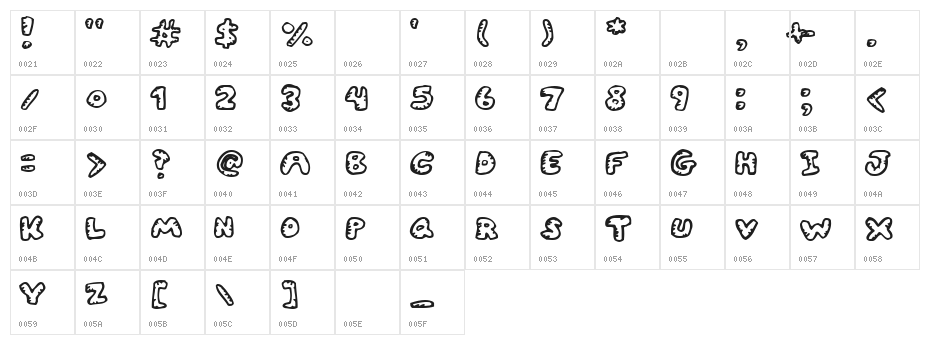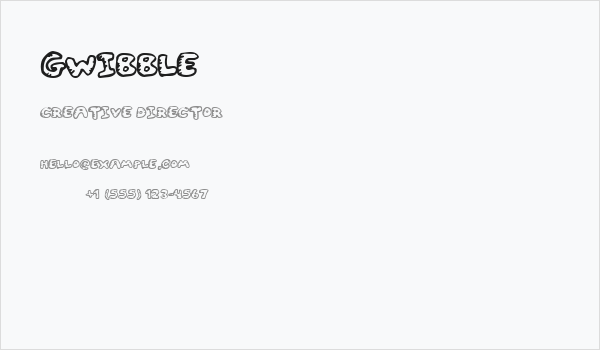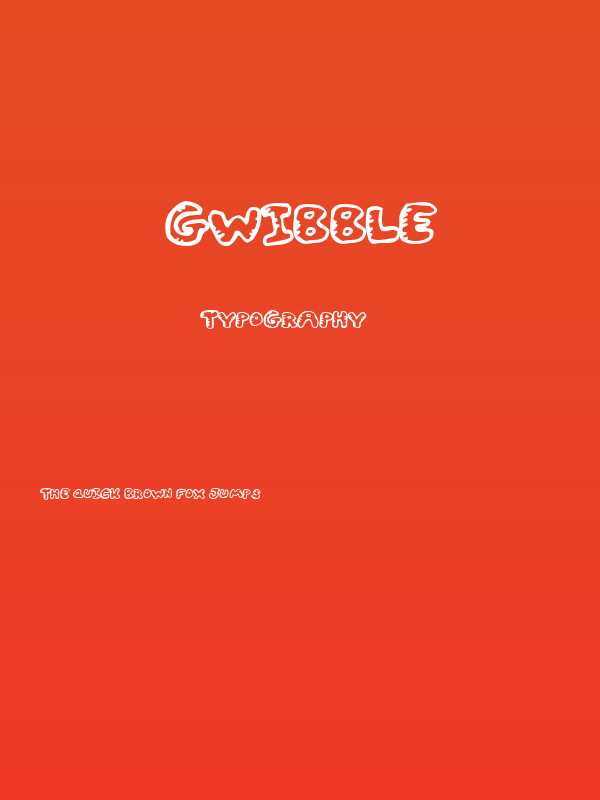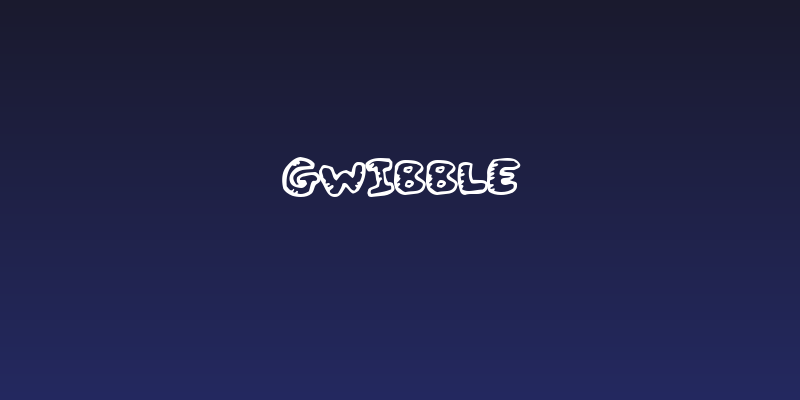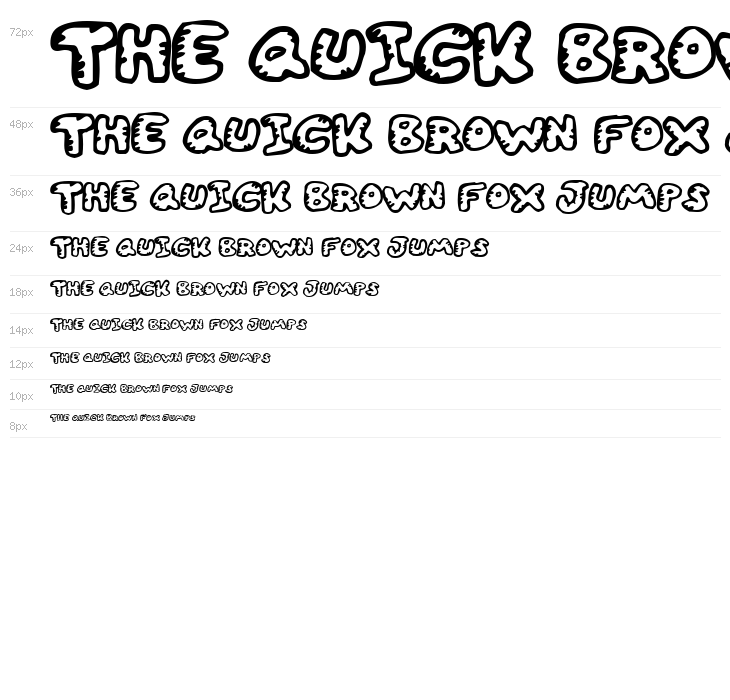
Gwibble Font
Gwibble Description
This playful and whimsical font features bold, rounded characters with a bubbly appearance. Each letter is outlined with a thick black border, giving it a cartoonish and fun look. The characters are slightly irregular, adding to the playful nature of the font. The numbers and special characters follow the same style, maintaining consistency throughout. This font is perfect for projects that require a lighthearted and informal touch, such as children's books, party invitations, or playful branding. Its unique style makes it stand out, ensuring that any text using this font will capture attention.
Overall StylePlayful
Proposed ProjectsIdeal for children's books, party invitations, playful branding, and any project needing a fun, informal touch.